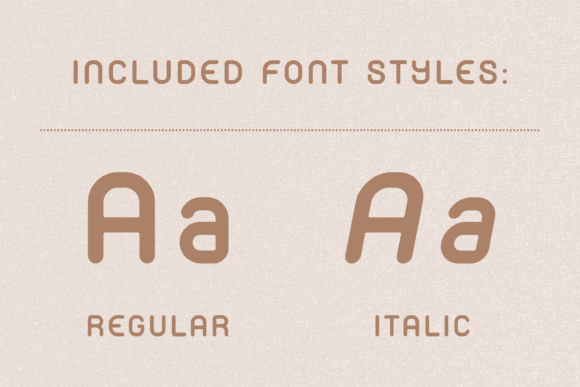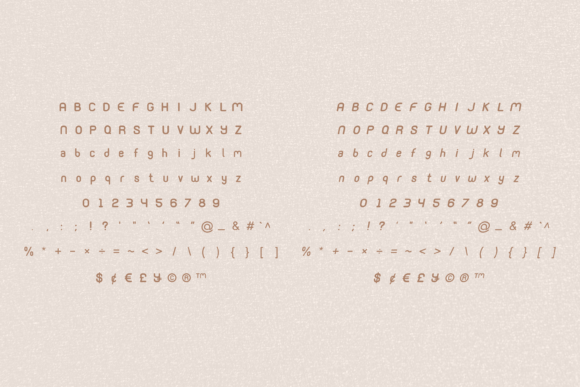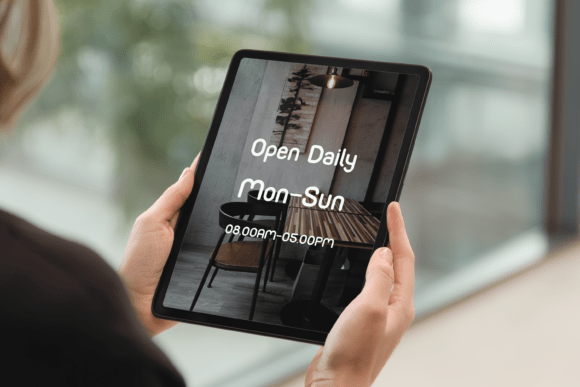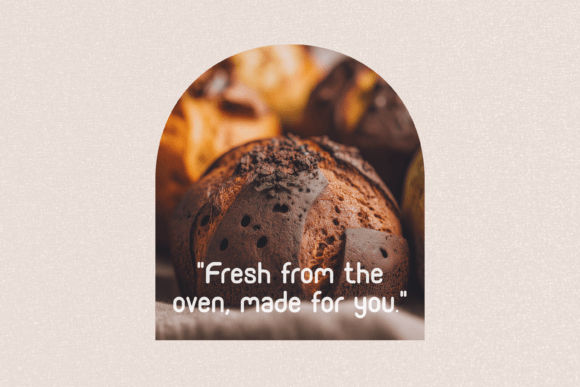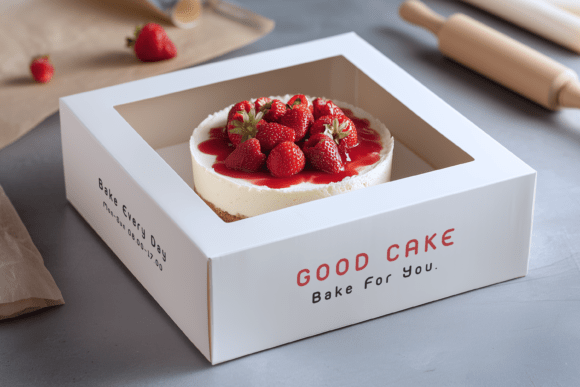
Introduction to Monoround Font Font
Fonts play a crucial role in design, and the Monoround Font font is a typeface that brings both character and versatility to any project. Whether you’re working on a branding project, a website, or a print design, the Monoround Font font offers a unique style that can elevate your work.
β¨Take your design projects to the next level with Monoround, a smooth and stylish rounded sans serif font available in both Regular and Italic styles.
Mono Round font is a clean, friendly, and exceptionally versatile rounded sans-serif that brings a sense of modern comfort to any project This Mono Round typeface features consistent stroke widths and perfectly softened corners, creating a βtubularβ look that is both high-tech and incredibly approachable.
Key Features of Monoround Font Font
Why Choose Monoround Font Font?
The Monoround Font font is more than just a typeface β it’s a design tool that helps you communicate your message with style and clarity. Its unique character set and versatile design make it suitable for a wide range of applications, from elegant invitations to bold headlines.
With its carefully crafted letterforms and balanced proportions, the Monoround Font font ensures readability and visual appeal across all mediums.
What makes Monoround Font font special?
The Monoround Font font stands out with its unique design, exceptional readability, and versatility across various design applications.